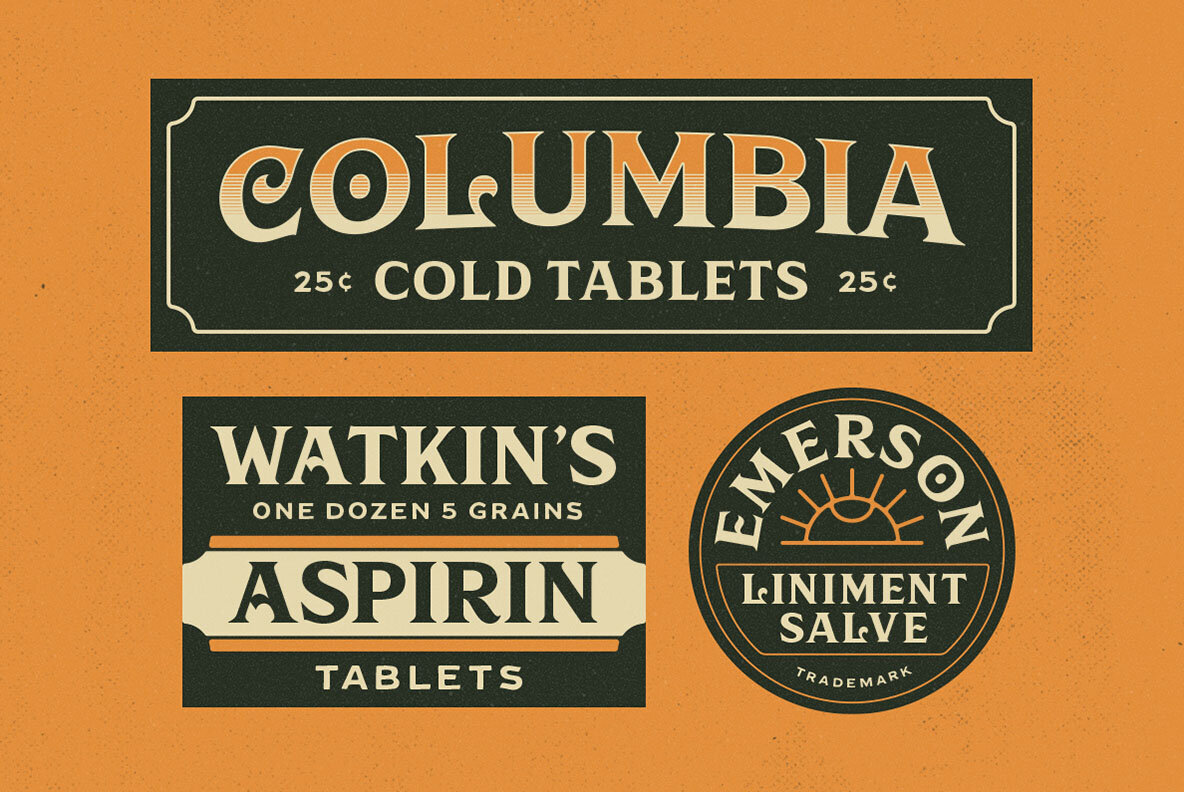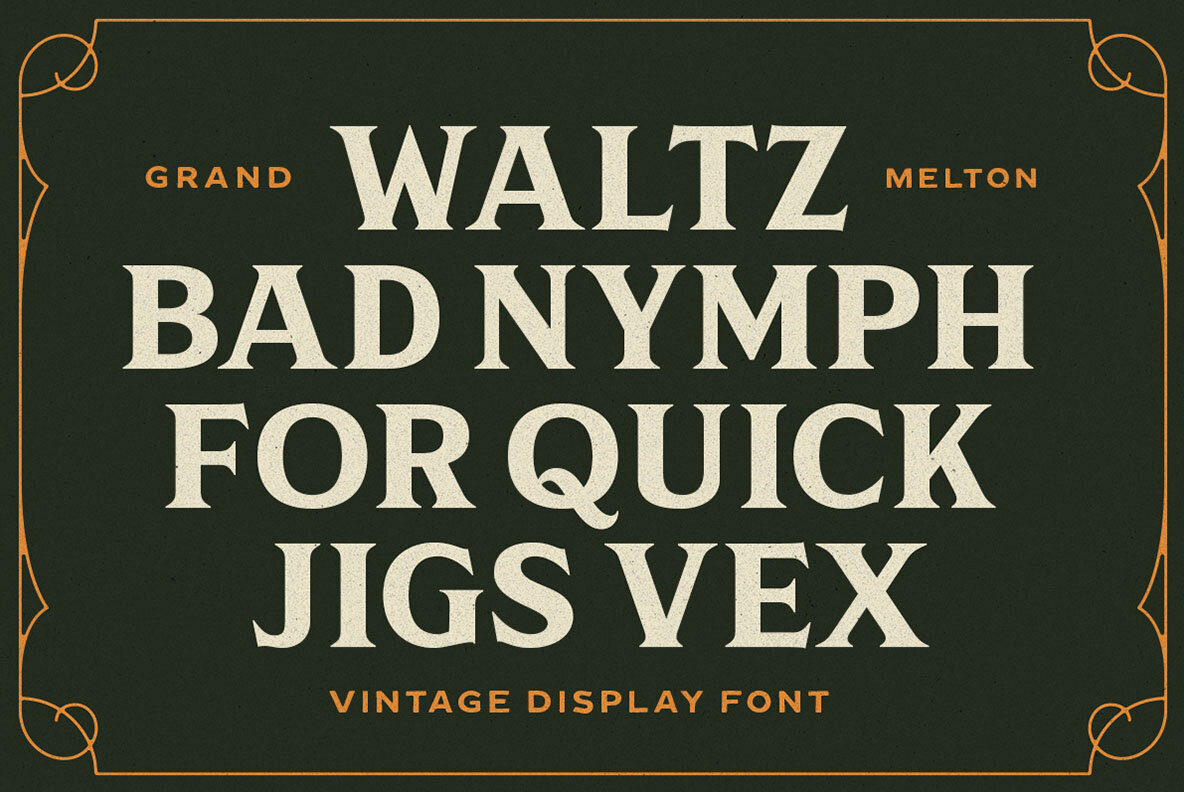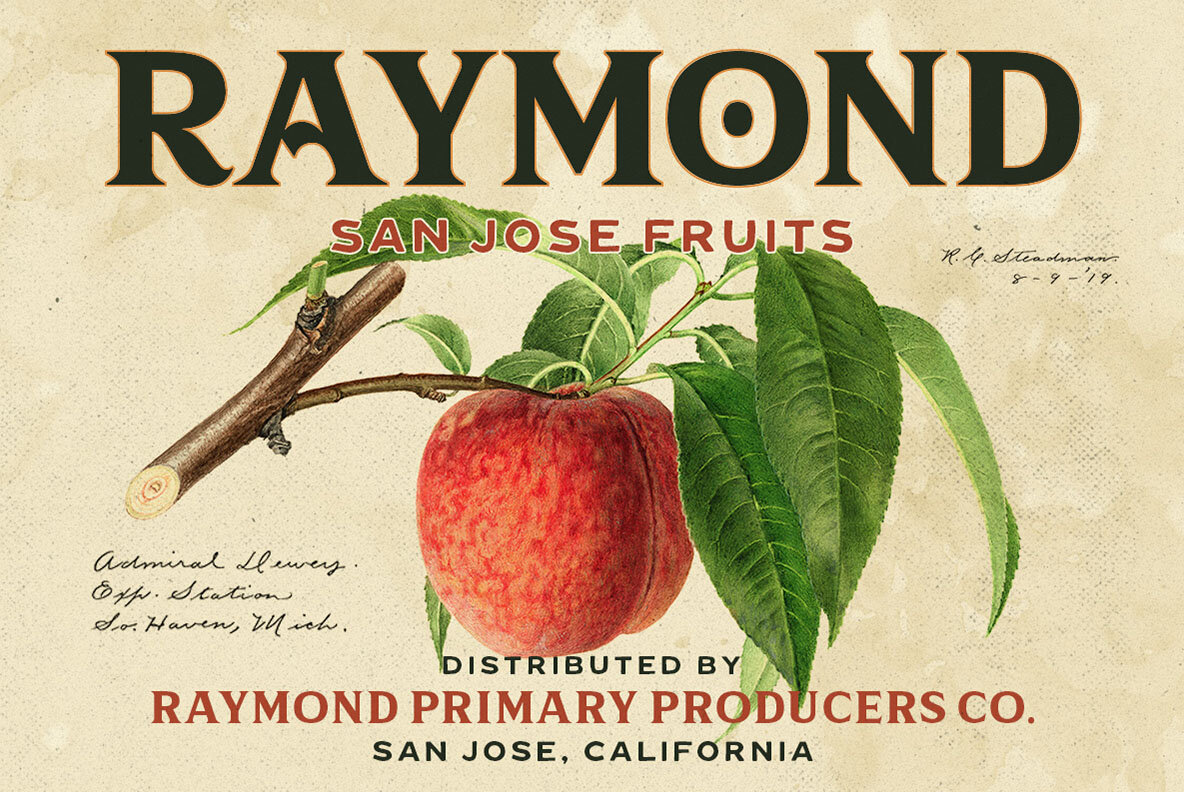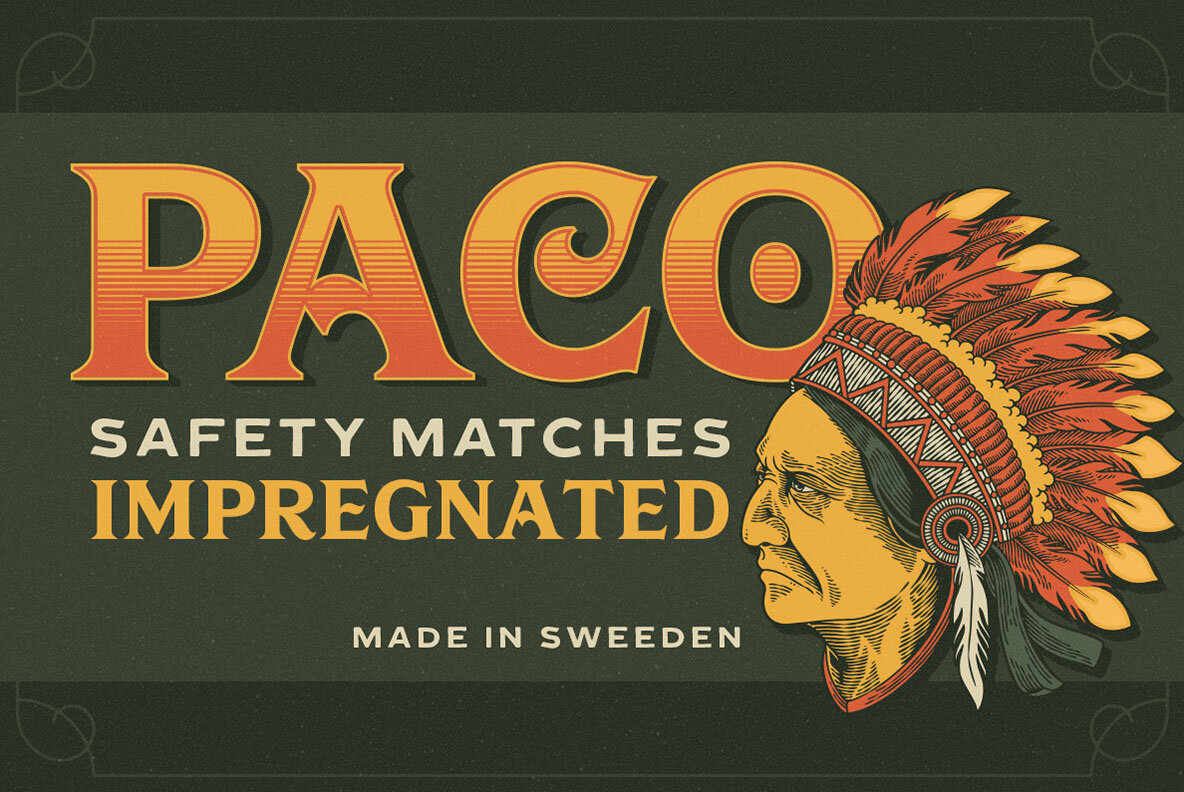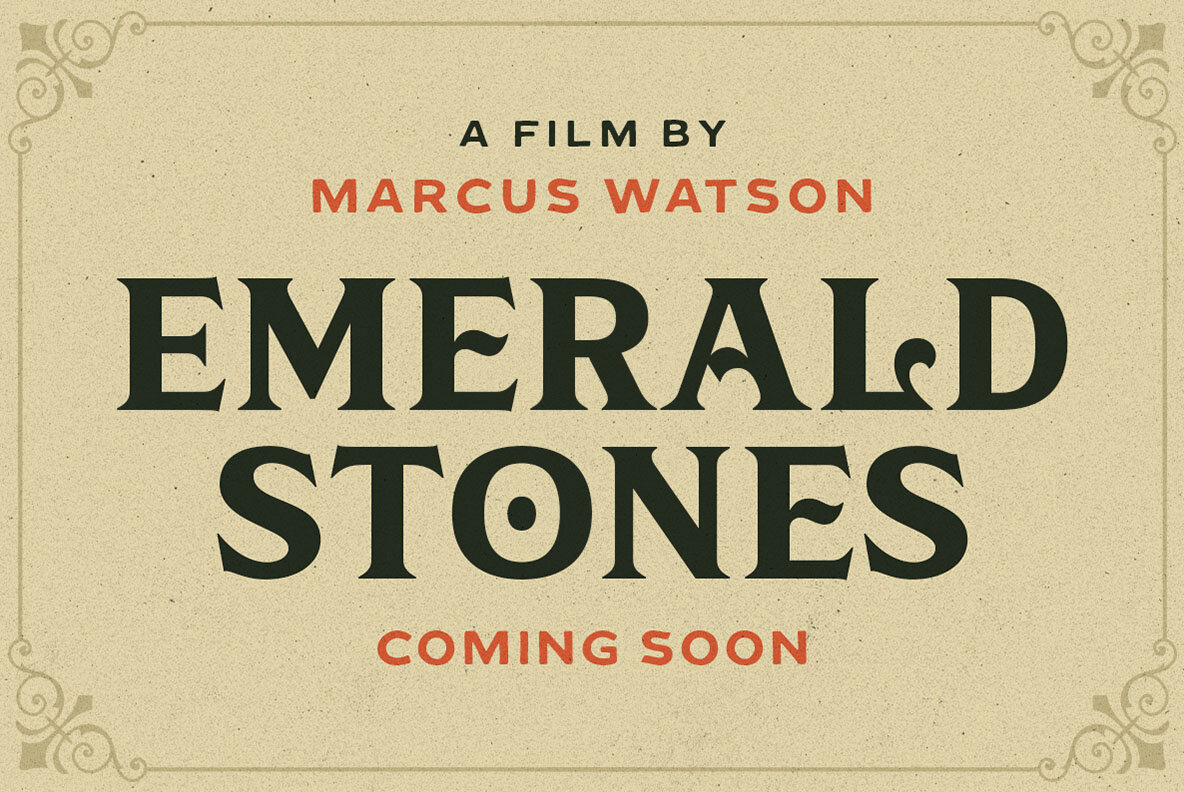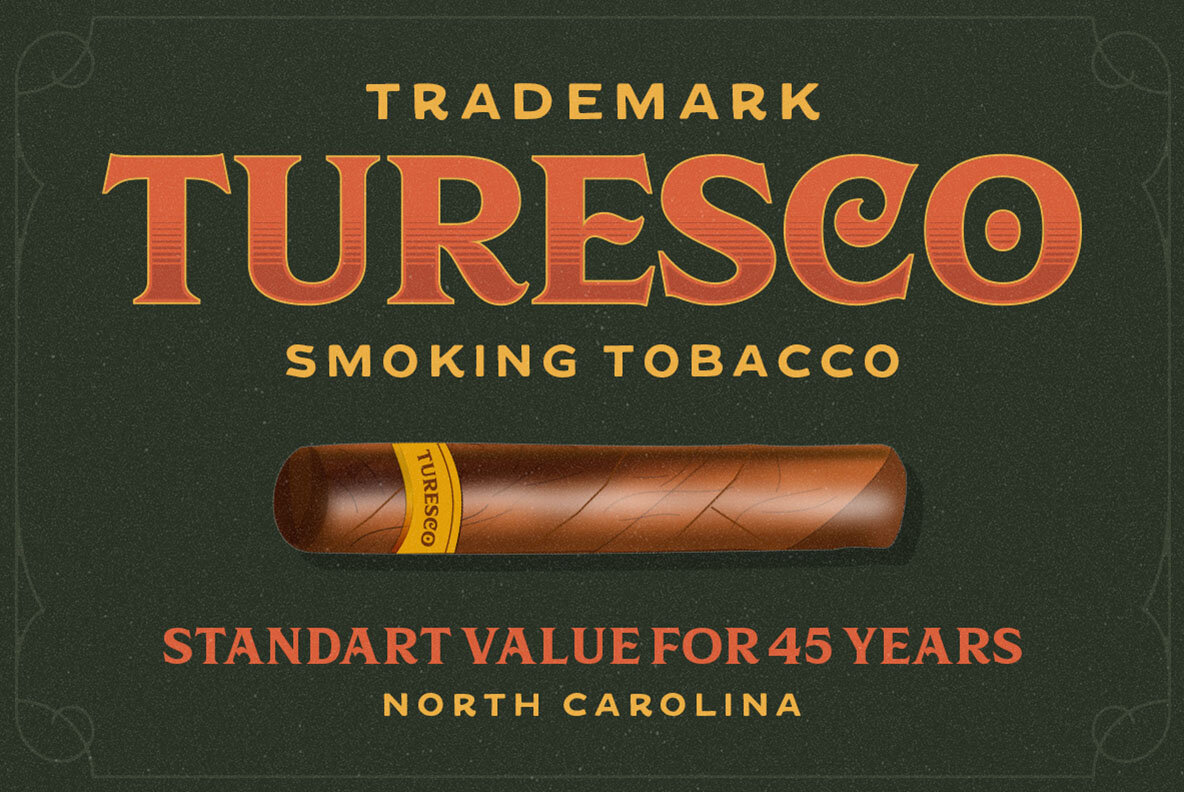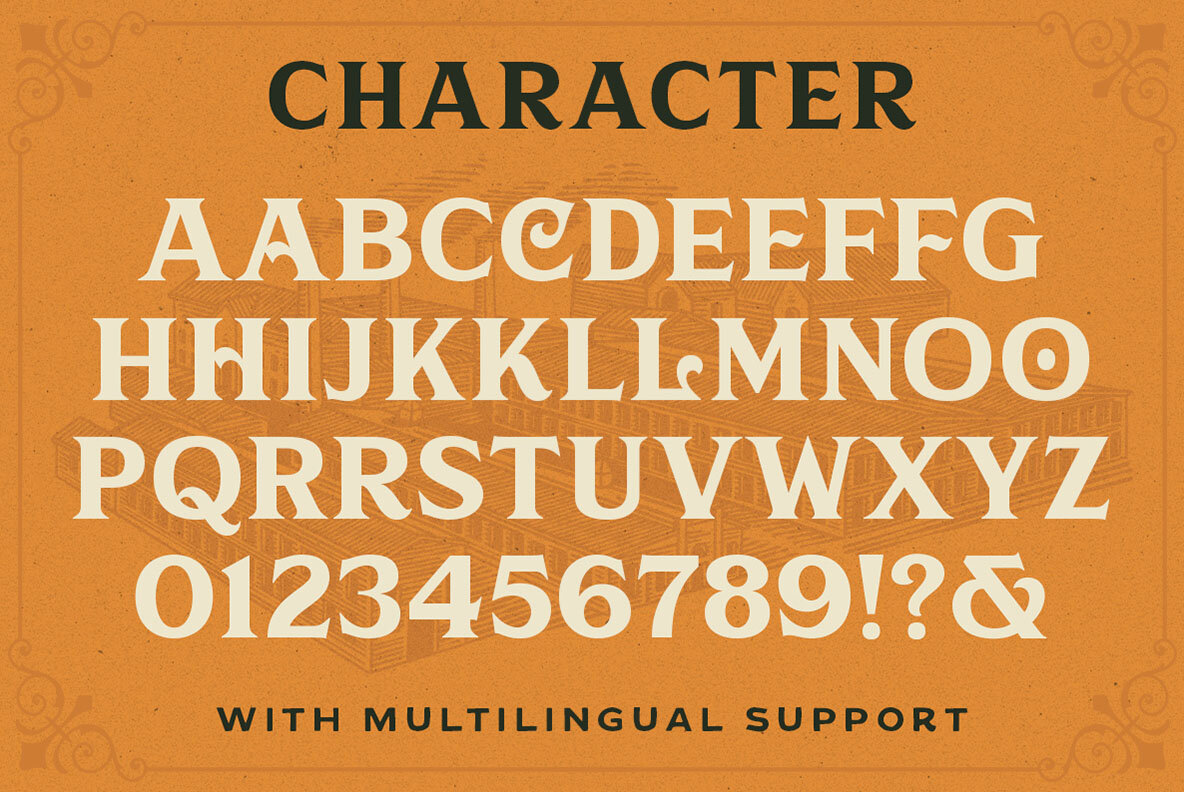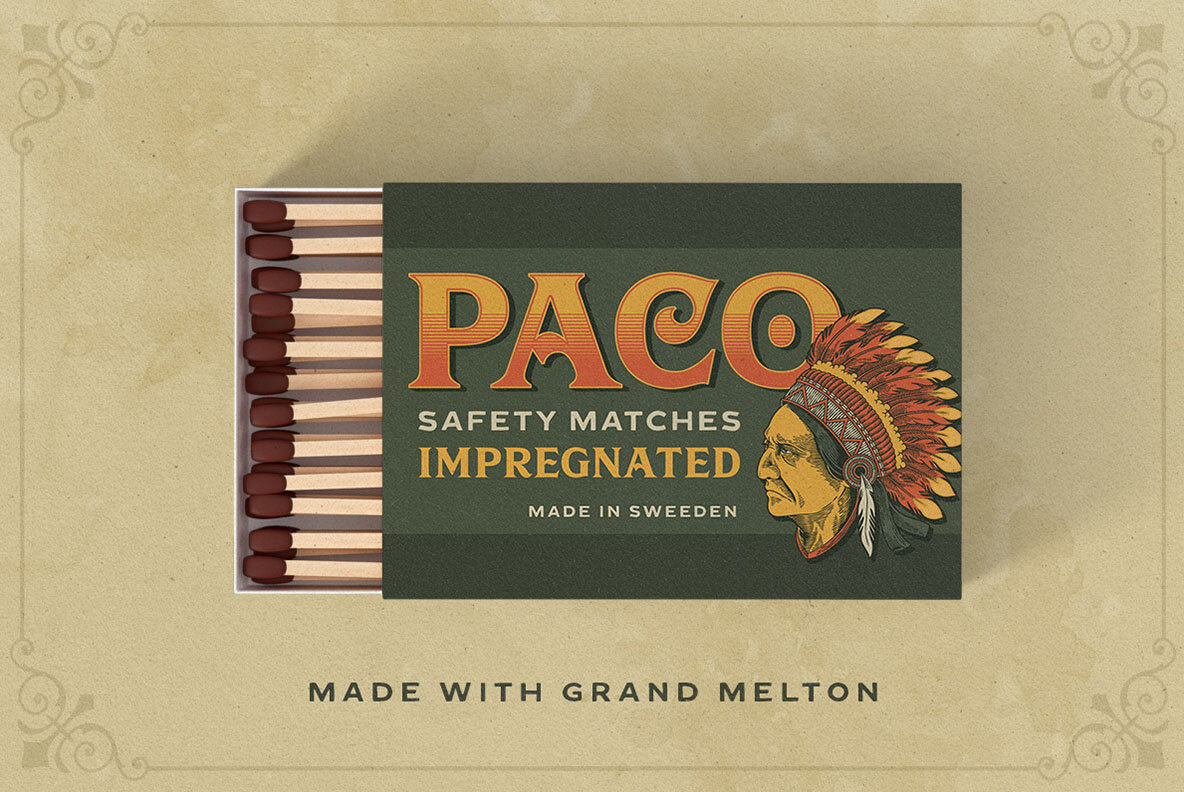
Grand Melton Font
Grand Melton Regular
Grand Melton Outline
IC Grand Melton is a powerful display typeface inspired by vintage type with carefully crafted. This typefaces is perfect for people looking for vintage aesthetic. Suitable for any graphic designs such as branding materials, t-shirt, print, logo, poster, t-shirt, quotes .etc